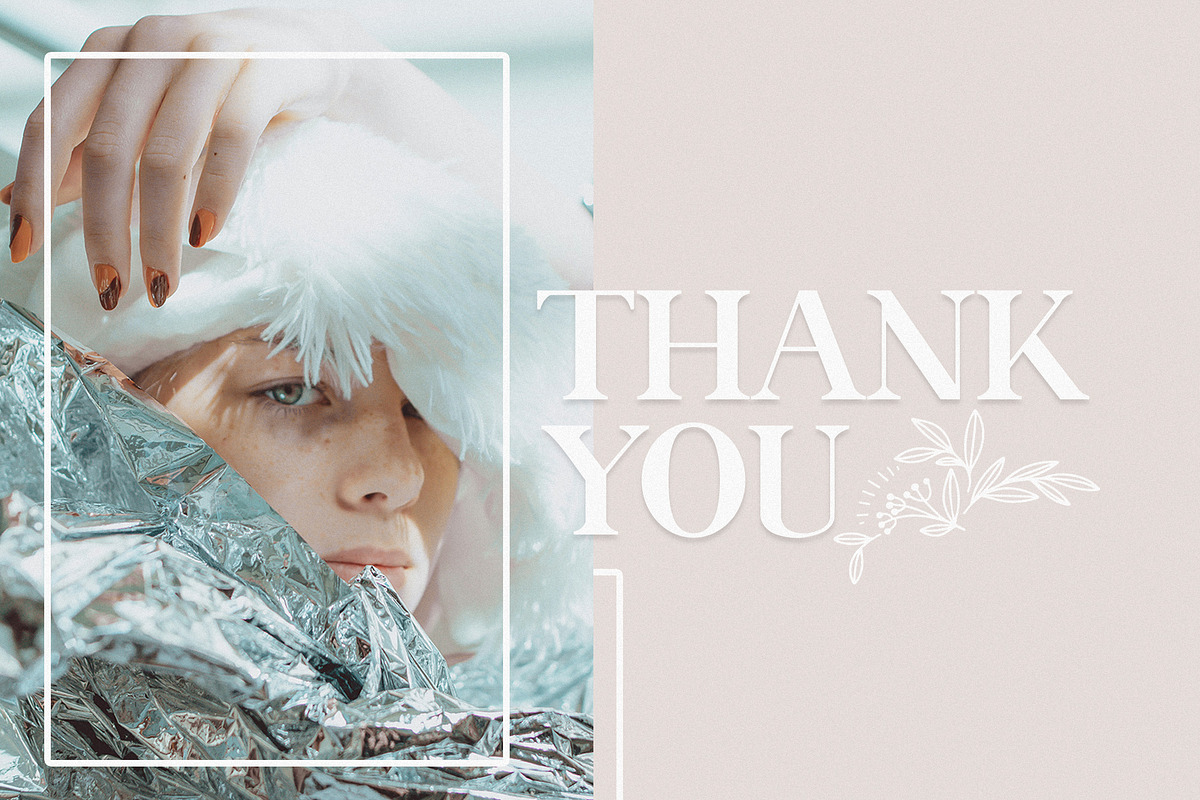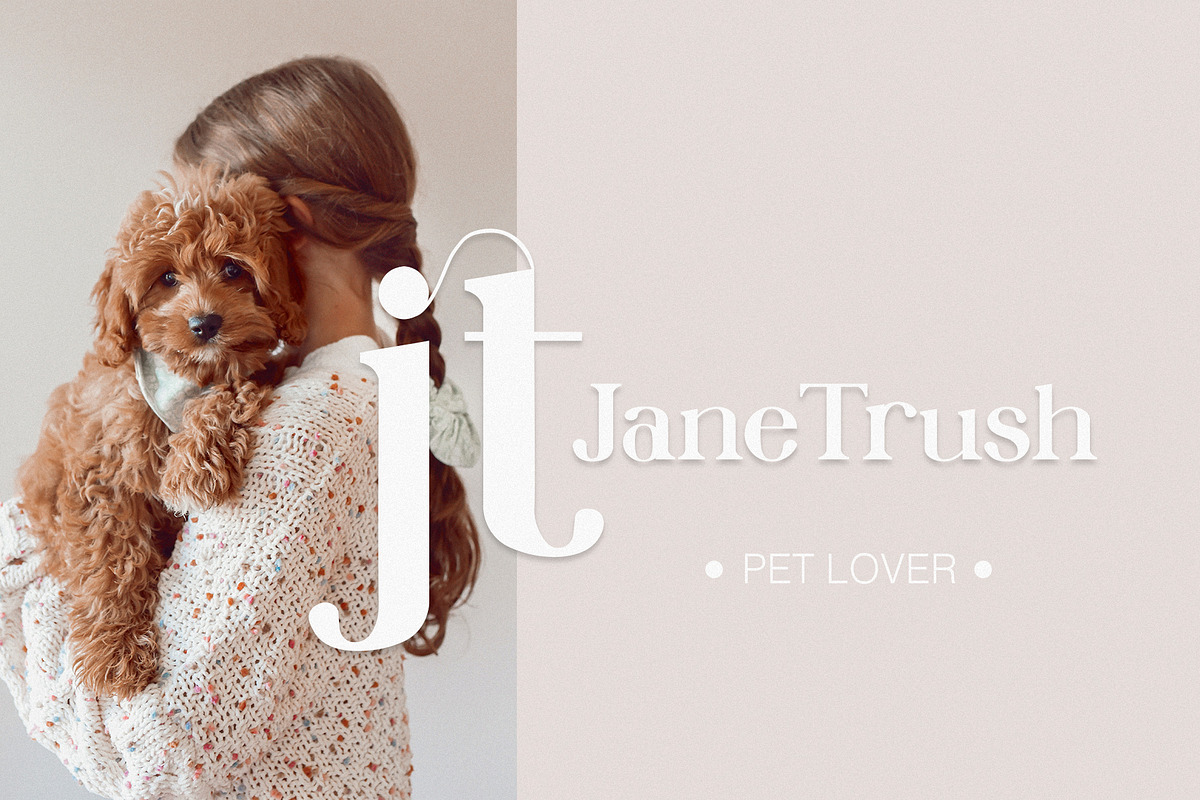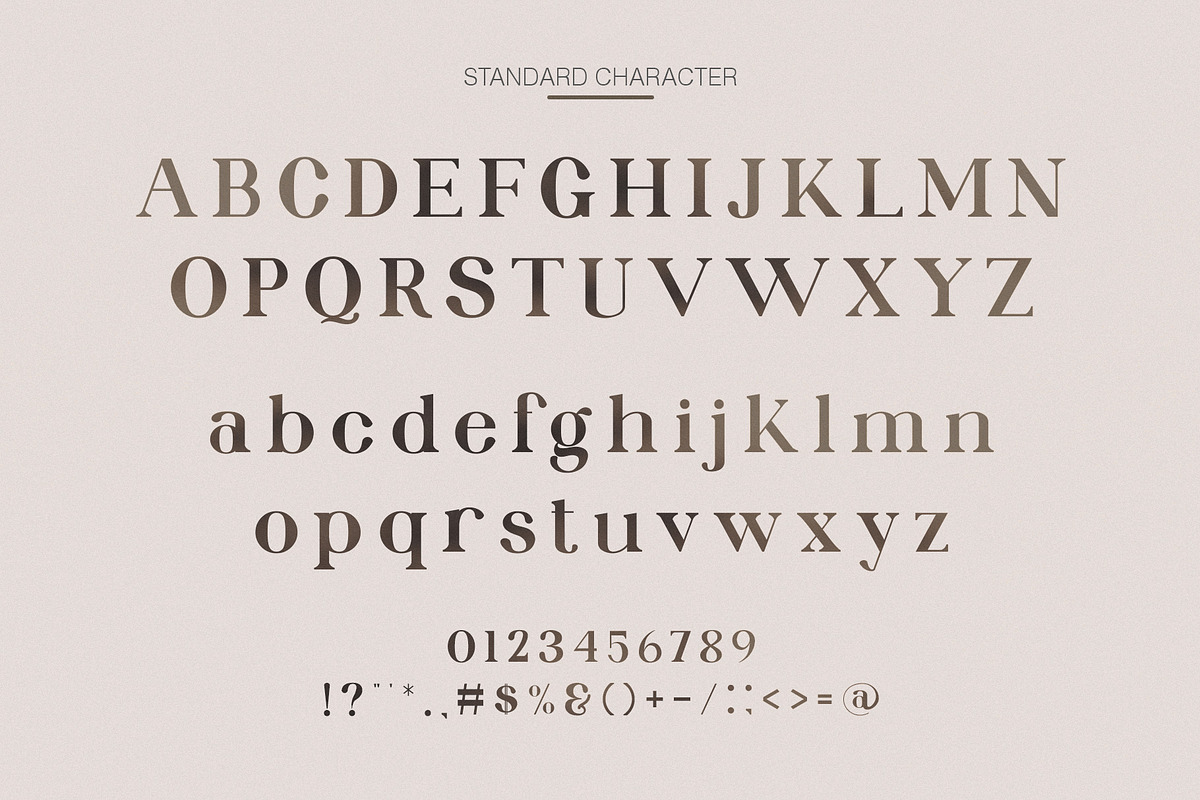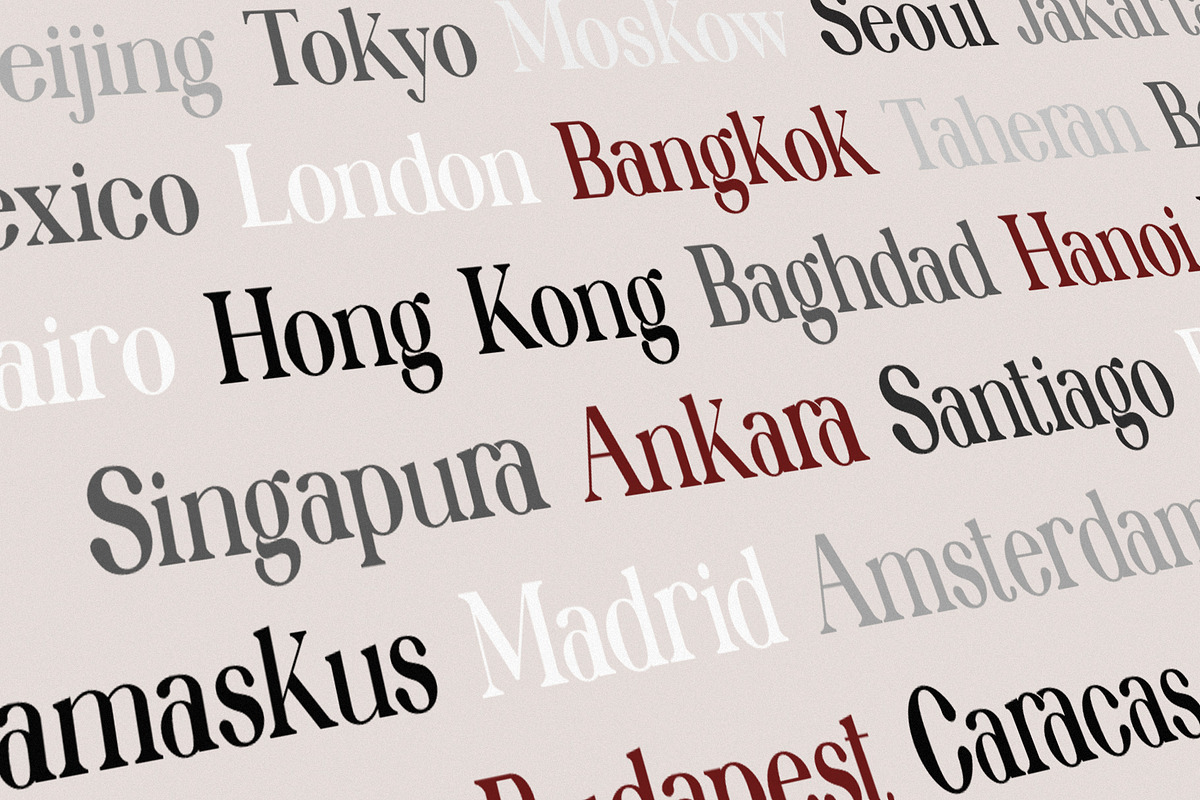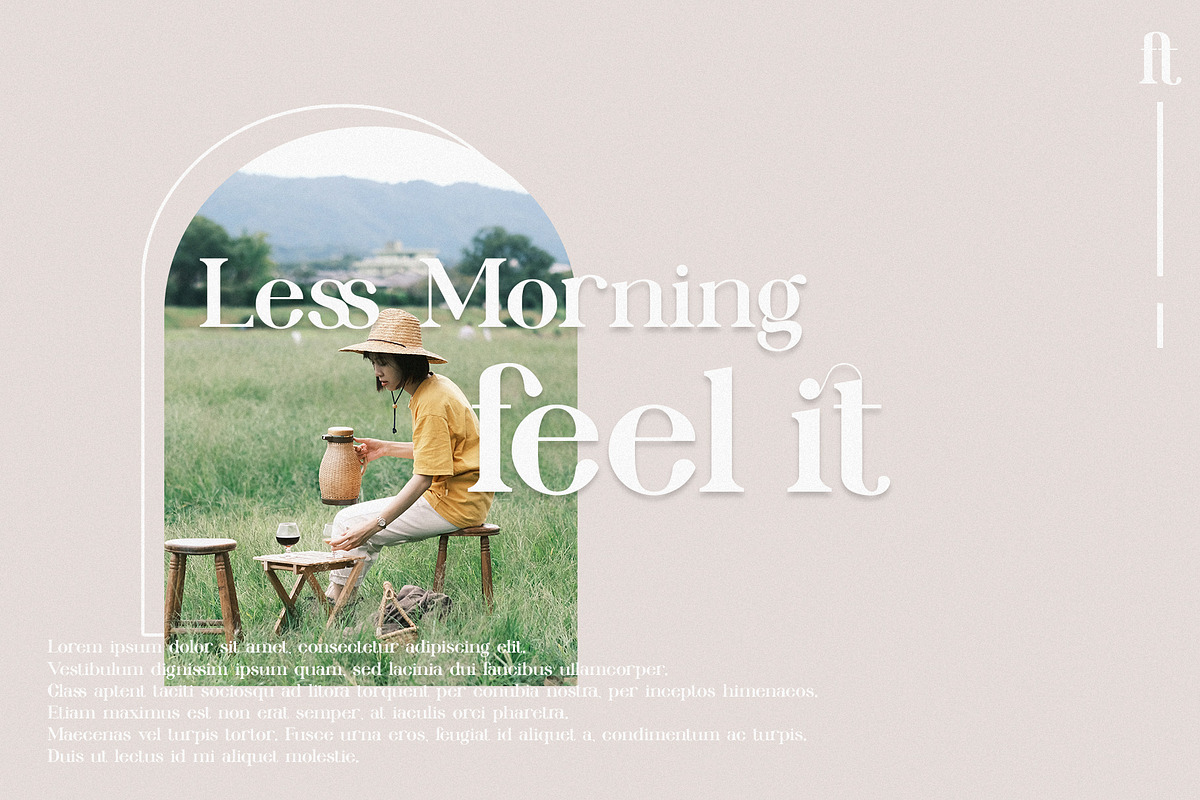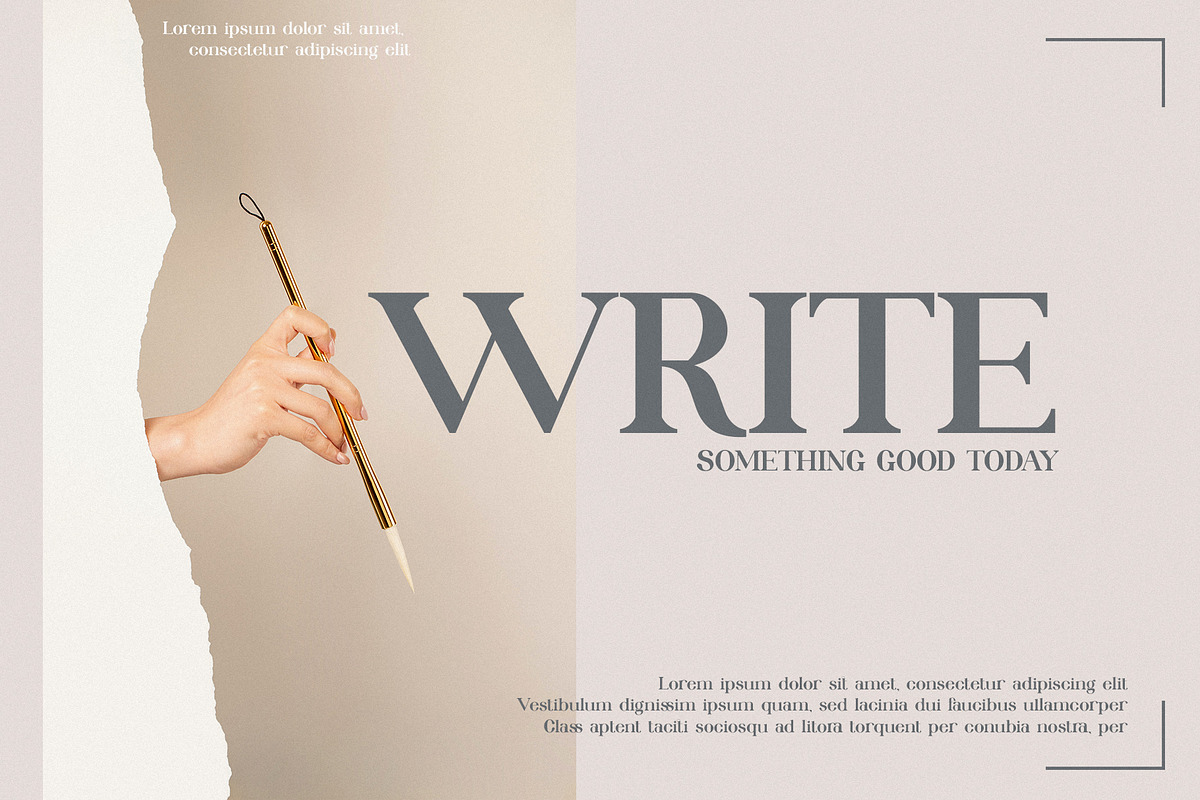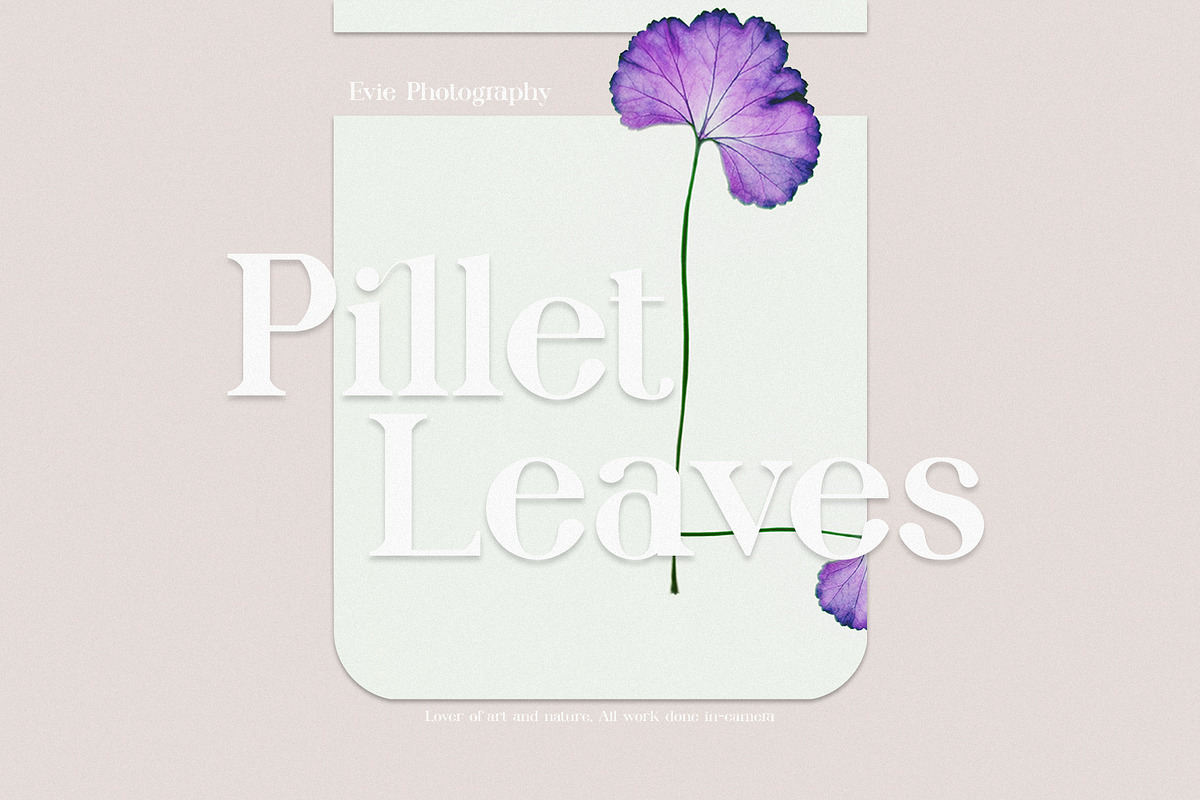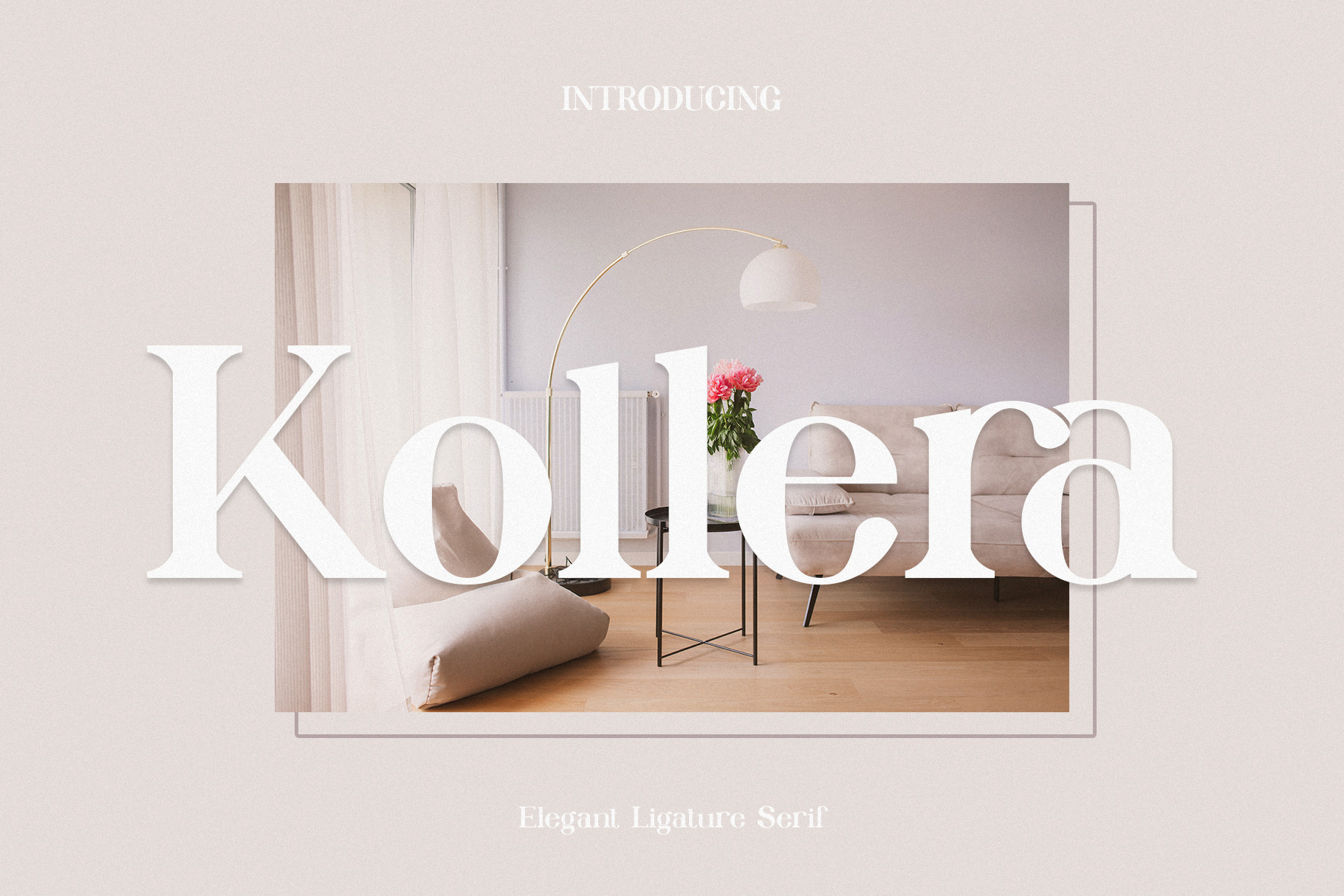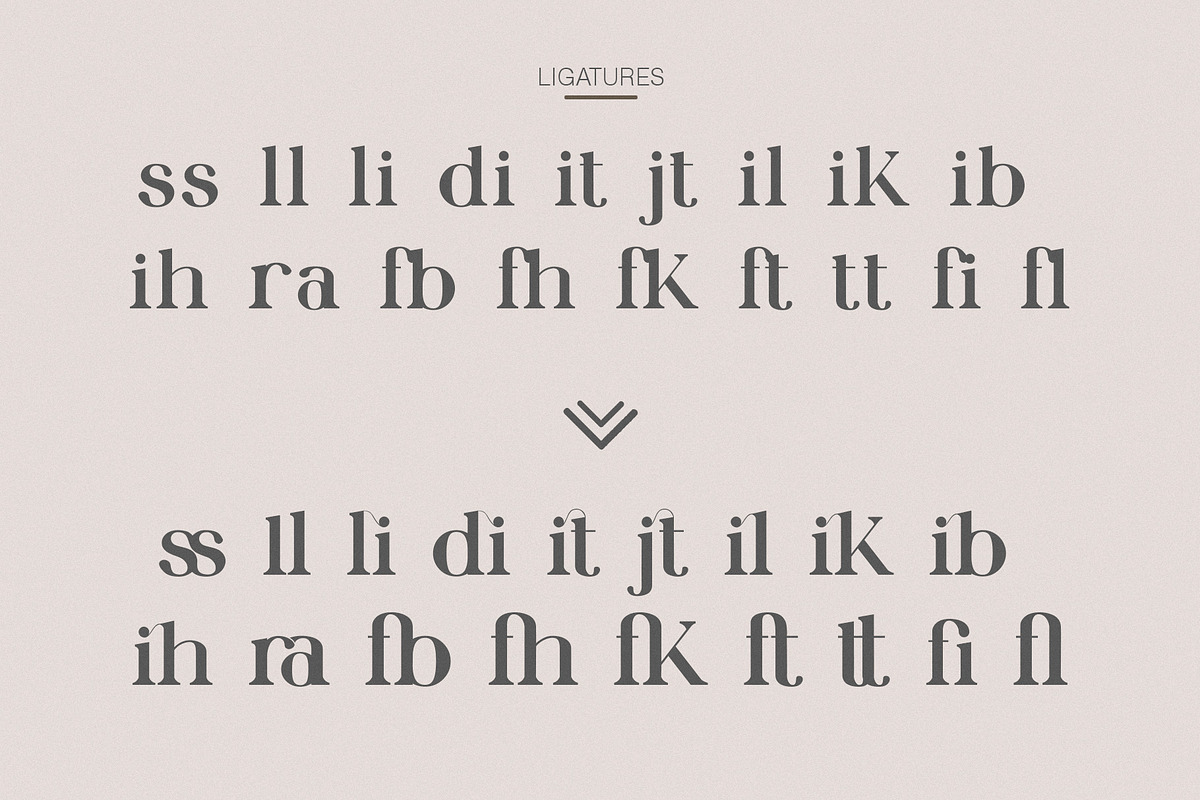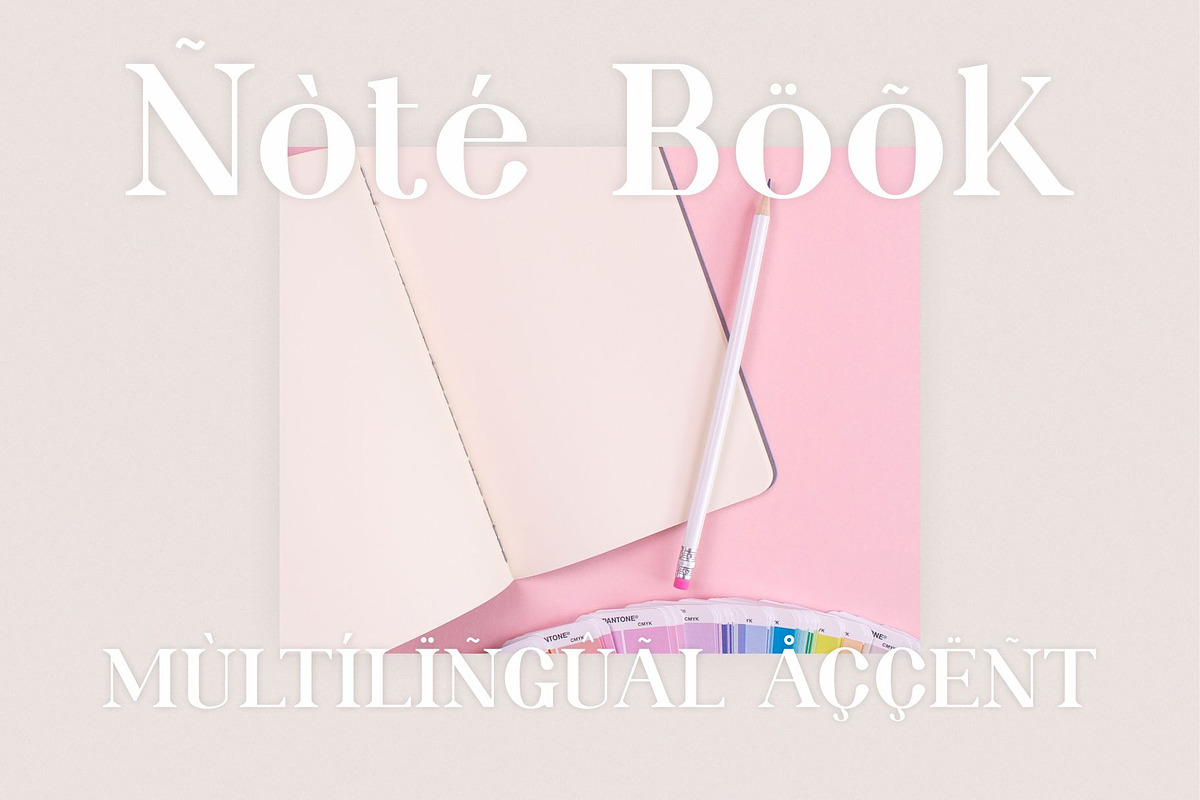
Kollera Ligature Serif Typeface
Kollera is a elegant and classy serif typeface – This font is both modern and nostalgic and works great for logos, magazine, social media. Already matched up and ready to be used together for your next design! For those of you who are needing a touch of elegant, stylish, classy, chic and modernity for your designs, this font was created for you!
Kollera was built with OpenType features and includes ligatures, numbers, punctuation, and it also supports other languages.